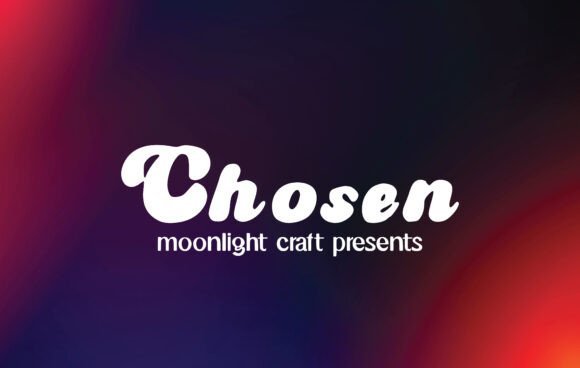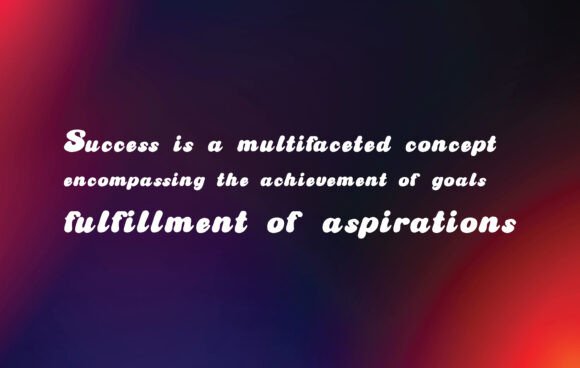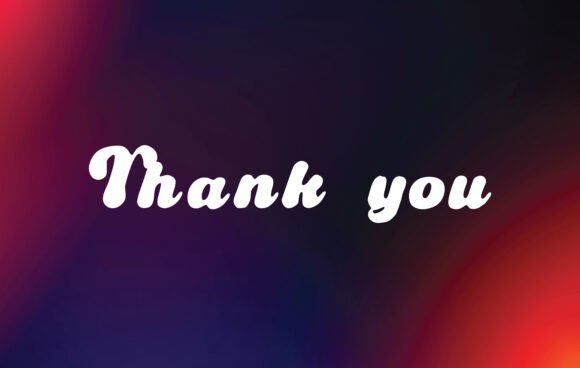
The Perfect Font for Your Creative Masterpiece
Do you remember that moment when a spark of creativity hits you, and you know exactly what you want to create? For designers, this feeling is all too familiar. It’s the moment when the perfect idea strikes, and the only thing that can bring it to life is the right tool. For me, it was when I stumbled upon the Chosen Font – a beautiful, handwritten font that has been a game-changer in my design journey.
The Chosen Font is more than just a pretty face; it’s a powerful tool that can elevate your creative ideas to new heights. With its unique, flowing style, it’s the perfect choice for creating eye-catching logos, branding, and quotes that truly stand out. As a designer, I can attest to the value of having a versatile font like Chosen Font in your toolkit. It’s a must-have for any designer looking to take their work to the next level.
Chosen Font Key Features
- Unique Characteristics: Chosen Font features a unique blend of modern and traditional design elements, resulting in a distinctive and versatile typography.
- Font Weight and Style: Chosen Font includes a range of font weights (Light, Regular, Bold, and Black) and styles (Italic, Oblique, and Small Caps), providing users with extensive customization options.
Chosen Font Review
Overall, I have mixed feelings about the “Chosen Font”. Here are some of the things that work well for me:
- ✨ The font is highly customizable, which is great for designers who like to experiment with different styles and layouts.
- ✨ The font family is quite large, which means you have plenty of options to choose from when selecting a font for your project.
- ✨ The font is optimized for digital use, which means it looks great on screens and in various resolutions.
However, I do have some concerns about the limitations of the “Chosen Font”:
- ⚠️ The font can be quite heavy and overpowering, especially in smaller text sizes. This can make it difficult to read.
- ⚠️ The font is not ideal for body text, as it can be quite distracting and tiring to read large blocks of text in.
- ⚠️ The font family is quite large, but it can also be overwhelming to navigate through all the different options.
Overall, I think the “Chosen Font” has some great features, but it also has some significant limitations. If you’re looking for a font to use for headings or titles, it might be a good choice. But for body text, I would recommend looking elsewhere.
Getting the Most Out of Chosen Font
To get the most out of Chosen Font, consider the following tips:
- Use Chosen Font consistently throughout your design to create a cohesive look.
- Combine Chosen Font with other design elements to create a unique visual identity.
Chosen Font is suitable for a variety of applications, including:
- Branding and logos.
- Marketing materials, such as brochures and flyers.
- Website design and development.
- Print materials, such as business cards and letterheads.